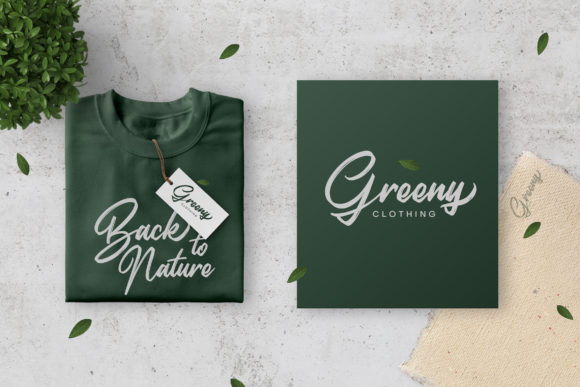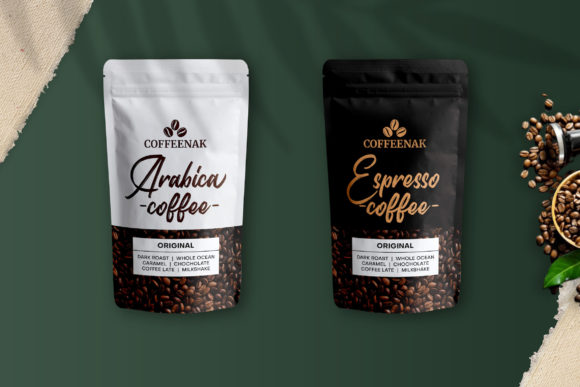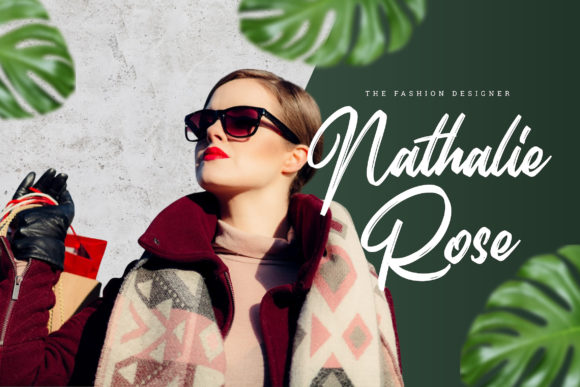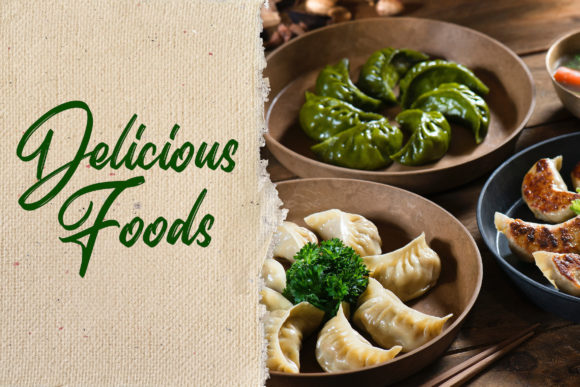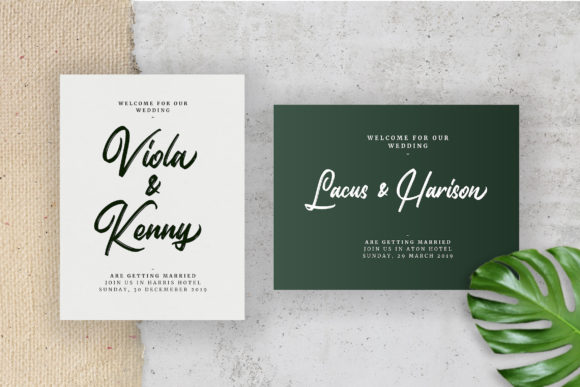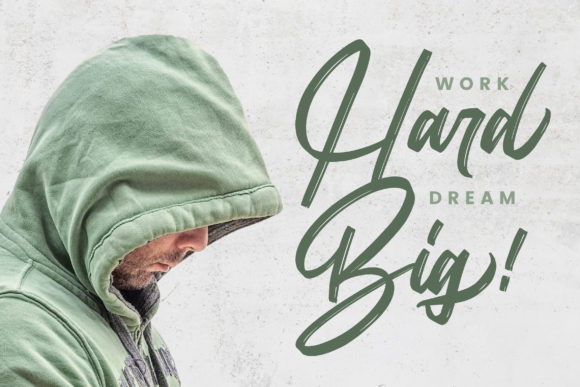
Introduction to Marelan Font
As a designer, there’s nothing quite like the thrill of finding the perfect font to elevate your creative project. Whether it’s a wedding invitation, a thank you card, or a logo for a new business, the right font can make all the difference. And for those looking for a high-quality, modern script font that’s both delicate and trendy, Marelan Font is an excellent choice.
With its irregular baseline and stunning alternates, ligatures, and multiple language support, Marelan Font is a design resource that’s sure to impress. And the best part? It’s available for free download, making it a valuable asset for designers on a budget. Plus, with a transparent background, you can easily place it over any image or design element to create a beautiful, cohesive look.
Key Features of Marelan Font
- Unique, elegant script font with a transparent background, ideal for adding a touch of sophistication to any design.
- Comes in a single weight, making it easy to use and integrate into your design project.
- Features a high-resolution design, suitable for printing and digital use at 300 DPI.
- Perfect for wedding invitations, greeting cards, and other creative projects where a touch of elegance is required.
Honest Review: Marelan Font
I recently had the chance to work with the Marelan Font, and I must say it’s been a pleasant experience. This free download has become one of my go-to design resources.
What works well is the high quality of the font. The Marelan Font has a unique and elegant design that’s perfect for creative projects that require a touch of sophistication. I love how the transparent background allows for seamless integration with any design element.
- ✨ Unique and elegant design
- ✨ High quality font files
- ✨ Transparent background for easy integration
- ⚠️ Limited font family options
Marelan Font
The Marelan Font is a high-quality, free download font that can be used for a variety of creative projects. It features a transparent background, making it perfect for graphic designers and artists who want to add a touch of elegance to their designs.
Tips for Getting the Most Out of Marelan Font
Here are a few tips for getting the most out of the Marelan Font:
- Use it in combination with other high-quality design resources to create a cohesive look.
- Experiment with different font sizes and styles to add visual interest to your designs.
- Use the transparent background to create a sense of depth and dimension in your designs.
Common Use Cases for Marelan Font
The Marelan Font is perfect for a variety of creative projects, including:
Alternatives to Marelan Font
The Great Vibes Font is a high-quality, handwritten script font that is perfect for creative projects, such as wedding invitations, art prints, or greeting cards. It features a transparent background and a beautiful, flowing design. When to use: Any project that requires a touch of elegance and sophistication. Comparison to Marelan Font: While Marelan Font has a more modern feel, Great Vibes Font has a more classic, vintage look.
The Alex Brush Font is a high-quality, handwritten font that is ideal for design projects that require a touch of personality. It features a transparent background and a beautiful, flowing design. When to use: Any project that requires a unique, creative touch. Comparison to Marelan Font: Alex Brush Font has a more casual, relaxed feel compared to Marelan Font.
The Carolyna Pro Font is a high-quality, modern script font that is perfect for design projects that require a touch of sophistication. It features a transparent background and a beautiful, flowing design. When to use: Any project that requires a modern, elegant look. Comparison to Marelan Font: Carolyna Pro Font has a more modern feel compared to Marelan Font, but still retains a classic, timeless look.